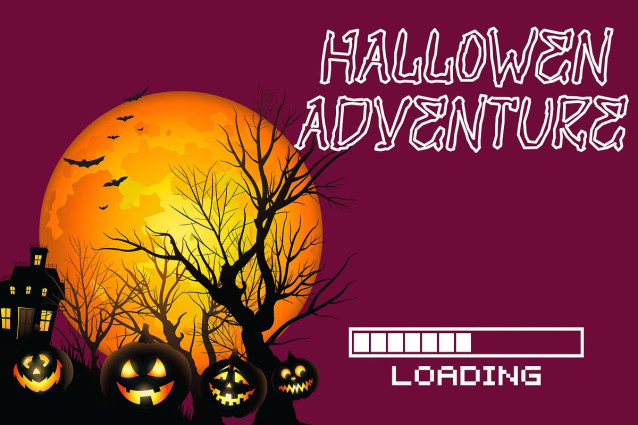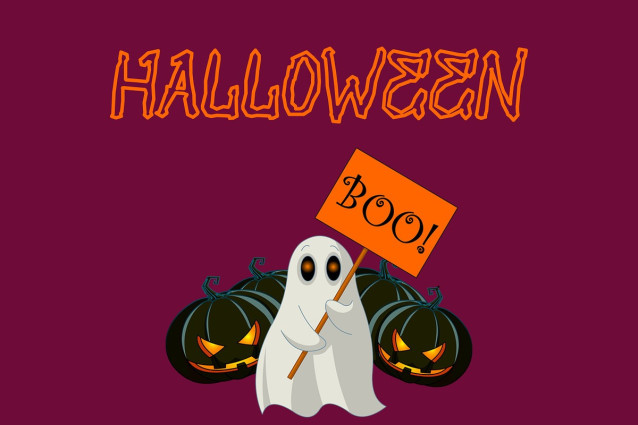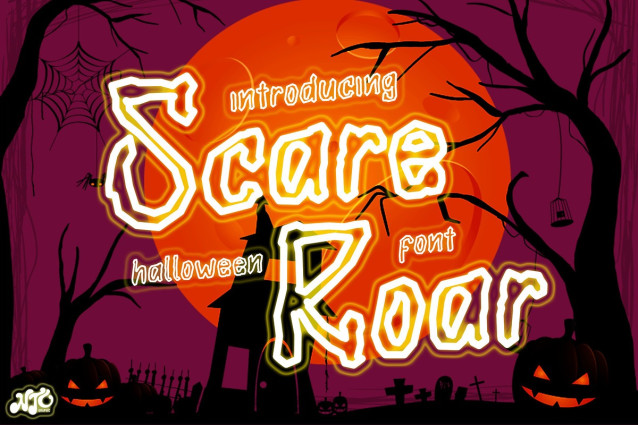
Scare Roar Font
Scare Roar Font is a horror Halloween themed font with a very unique shapes character. Scare Roar font is perfect for Halloween card and Halloween banner designs. This font is suitable for making previews and covers, horror logo designs, shirt designs, and other horror graphic needs.